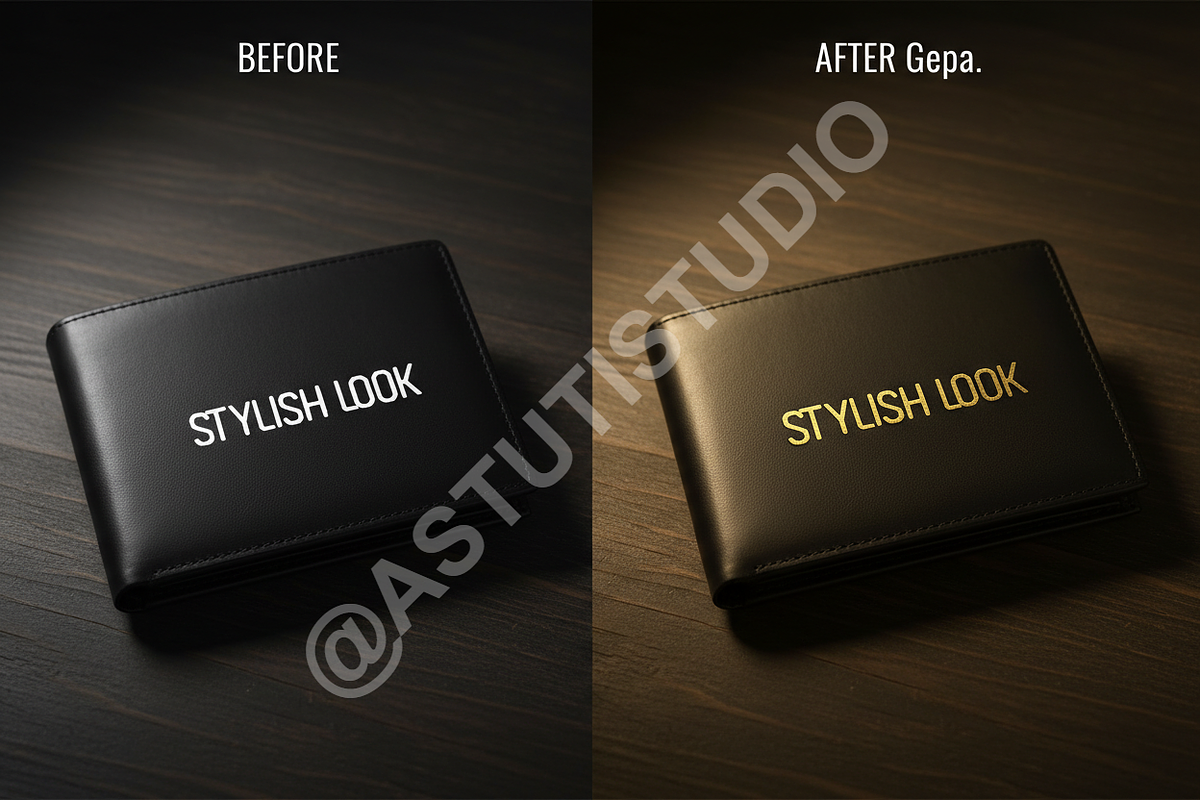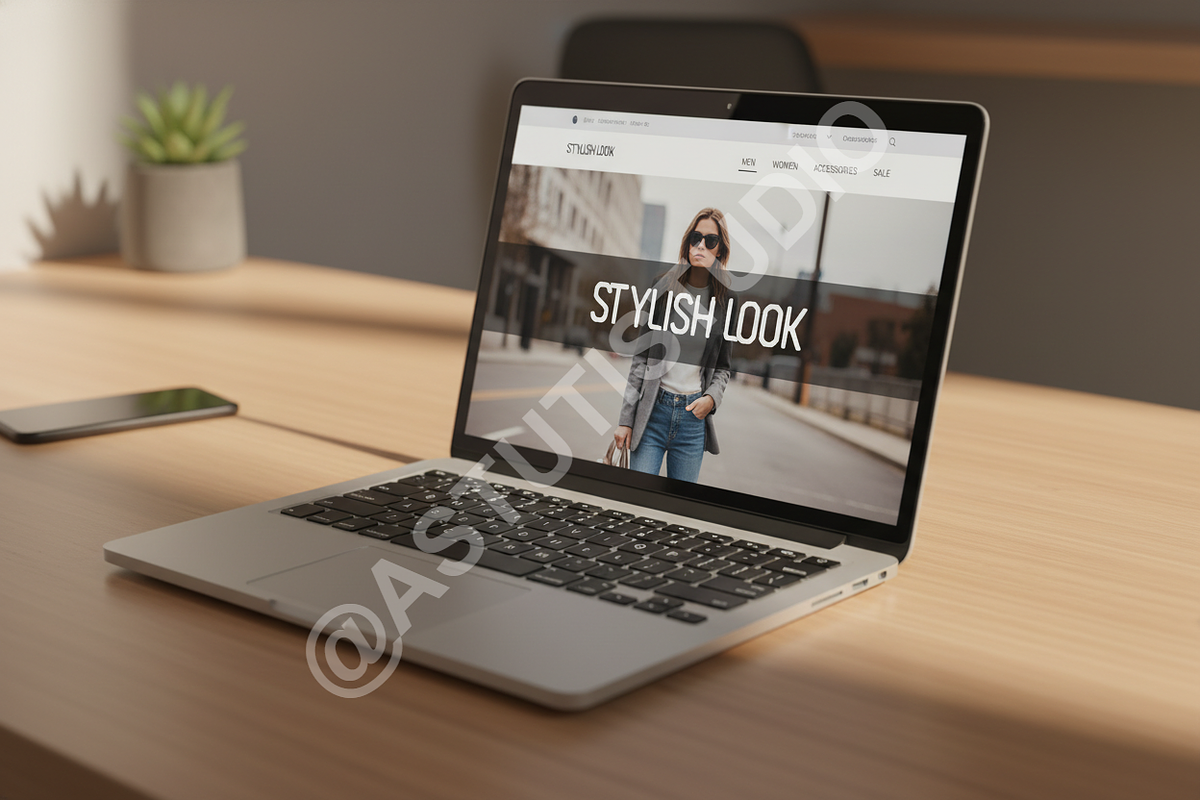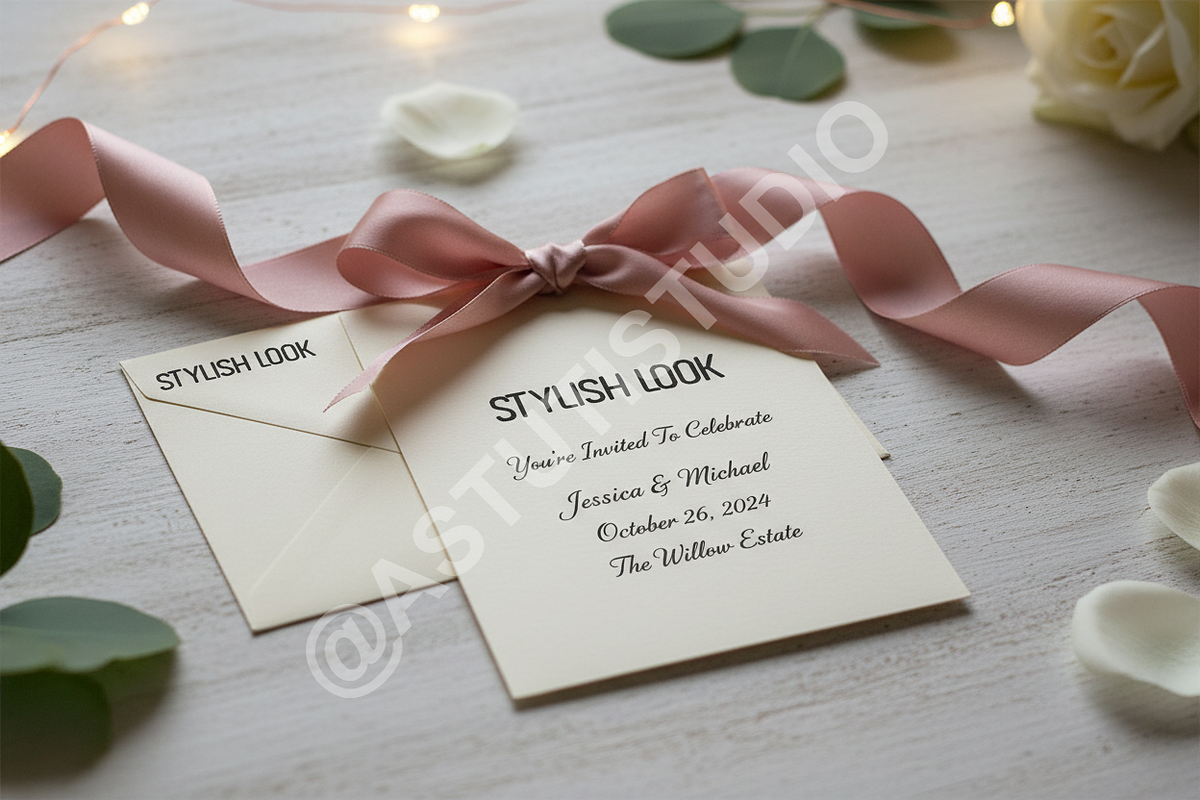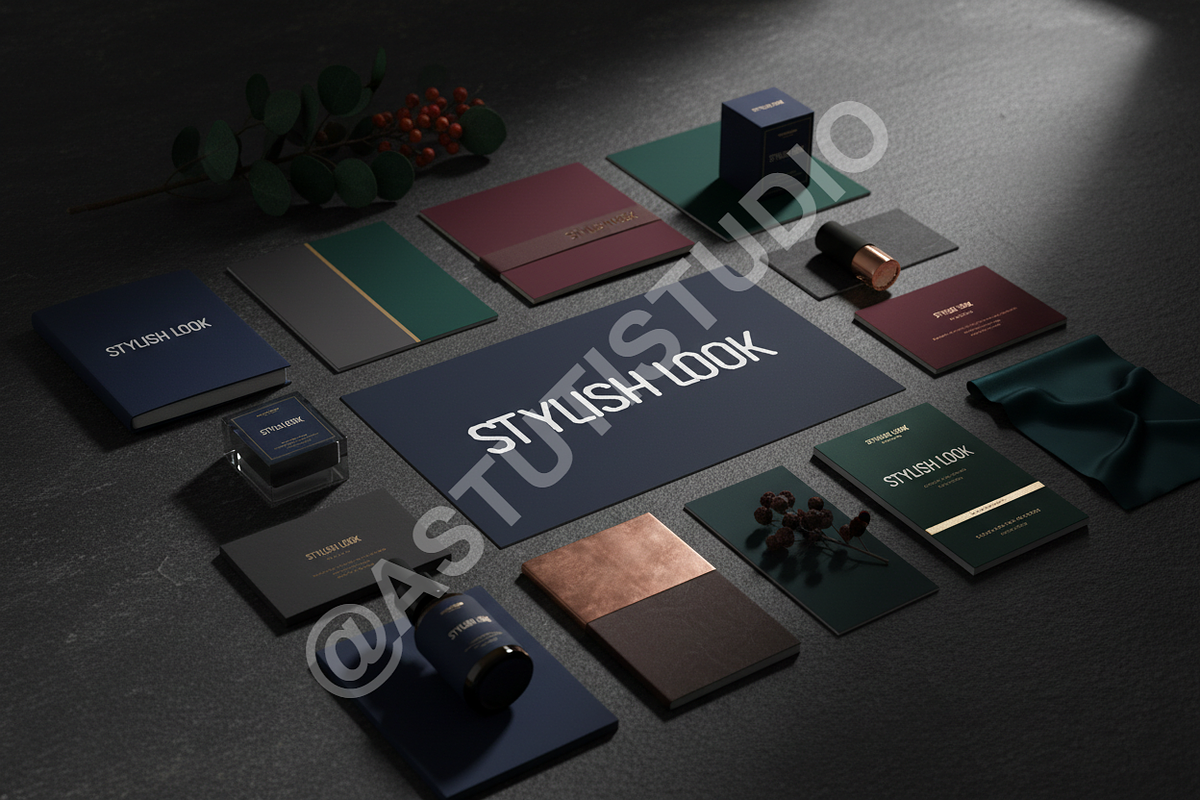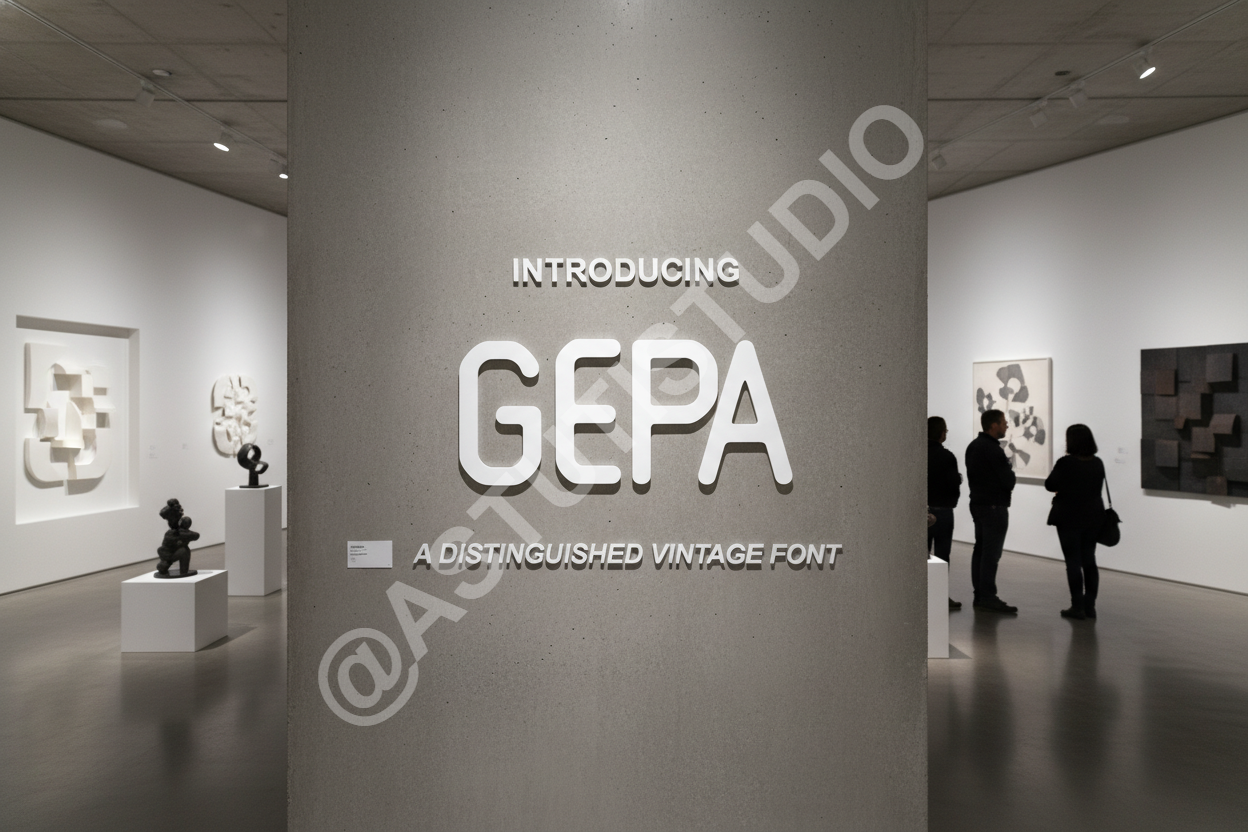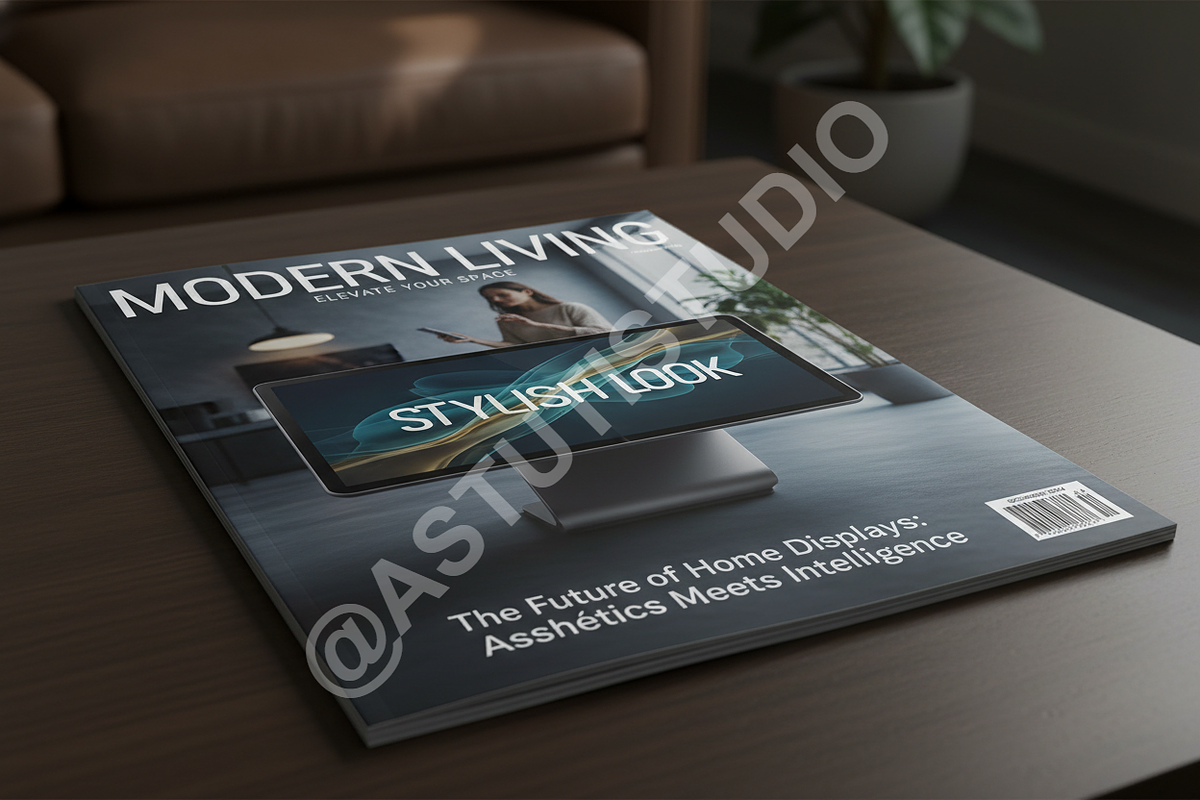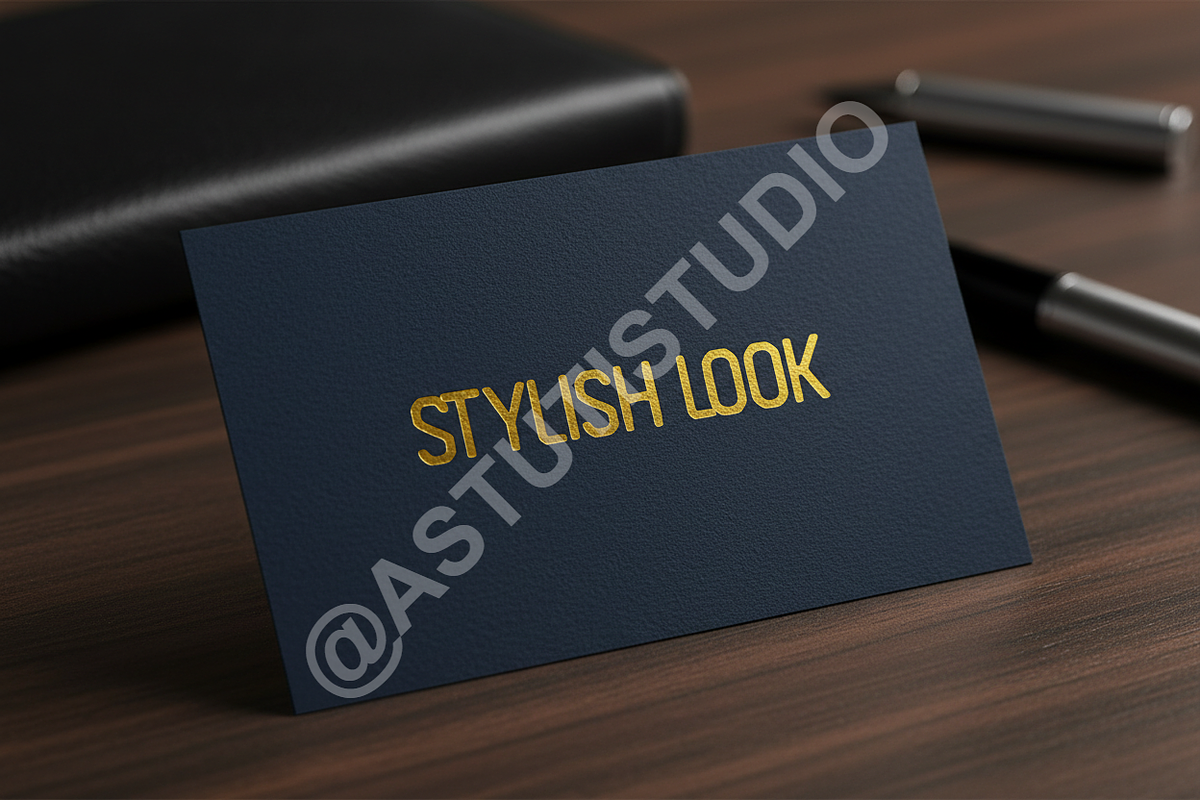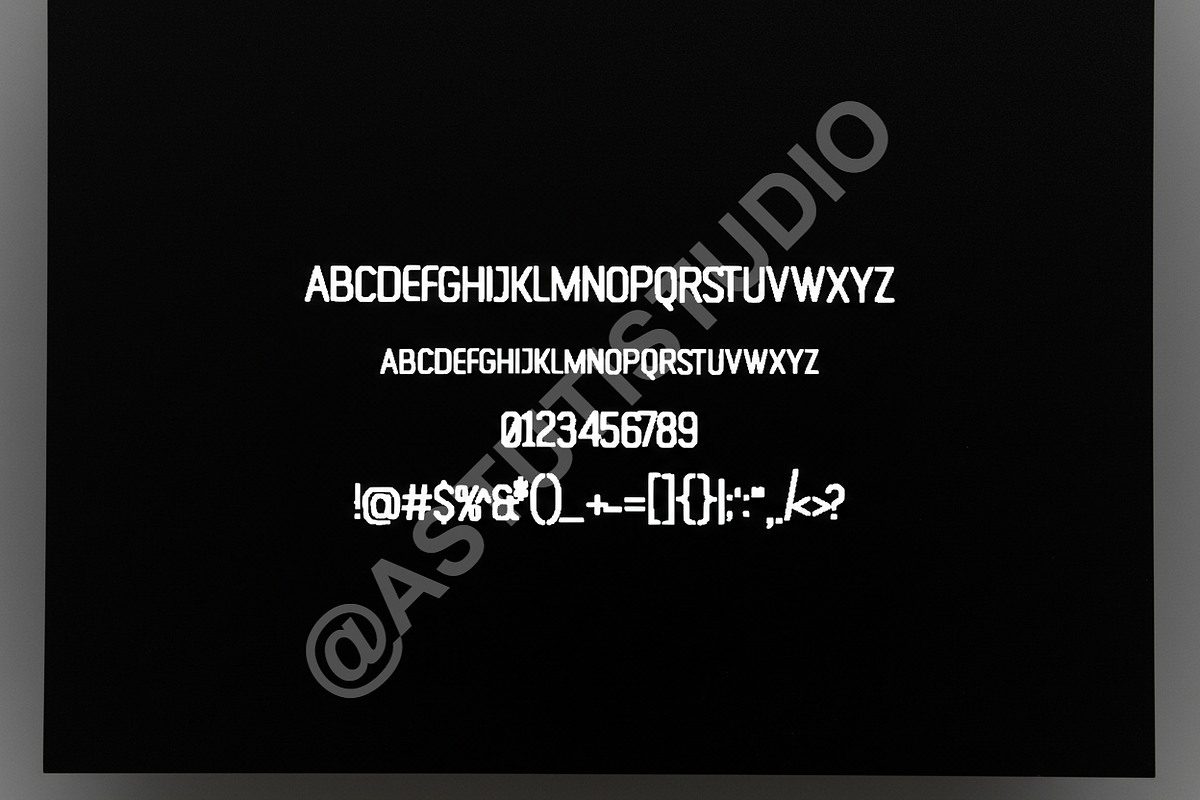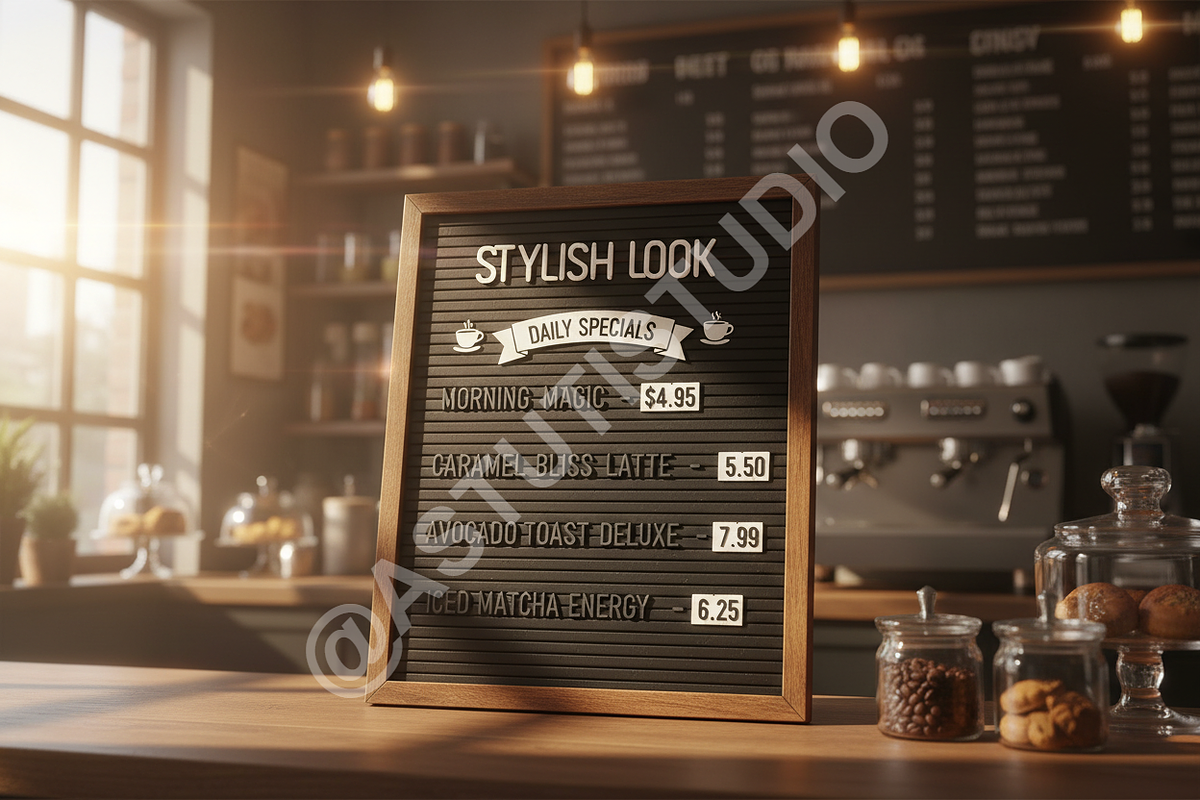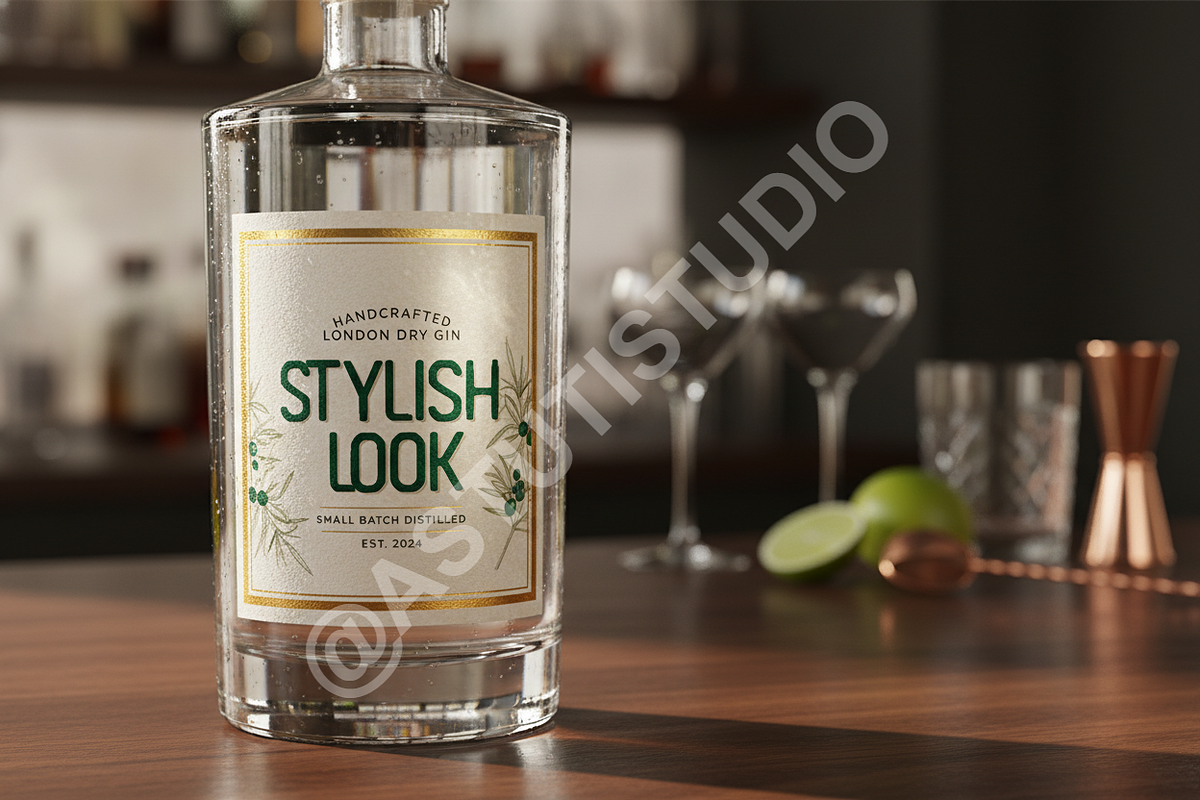
Gepa – Elegant Serif Font
Introduction: Gepa is an exquisite serif typeface, meticulously crafted to embody sophistication and timeless elegance. Designed for the discerning creative, Gepa exudes a premium studio quality, making it the definitive choice for projects demanding a touch of refined luxury.
Ideal for high-end branding, captivating editorial layouts, and impactful social media campaigns, Gepa ensures your message is delivered with unparalleled style and gravitas.
- Elevated Serifs: Classic yet contemporary serifs that create a distinct and polished aesthetic.
- Optimal Legibility: Balanced letterforms and precise kerning ensure clarity and readability across all sizes.
- Versatile Application: Perfectly suited for headlines, body text, logos, packaging, and digital interfaces.
- Multilingual Support: Extended character set to accommodate a wide range of languages.
- OpenType Features: Includes ligatures and alternative characters for enhanced typographic control.